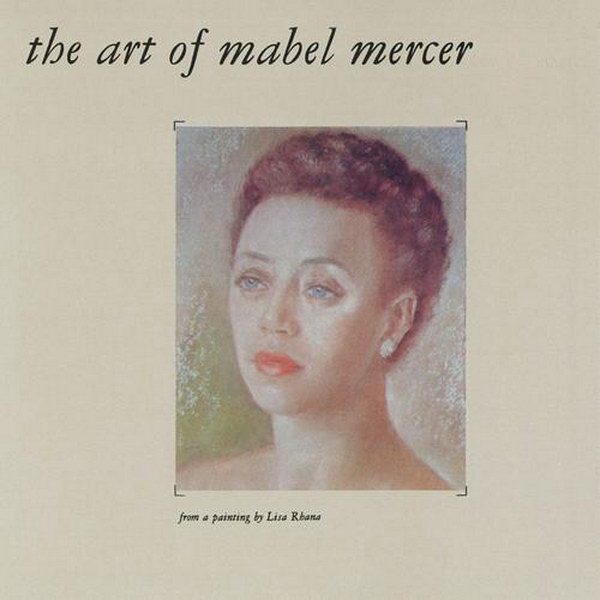
The Art of Mabel Mercer Font
Fonts in UseThe Art of Mabel Mercer is a compilation album featuring the recordings of the renowned cabaret singer Mabel Mercer. The album includes 24 tracks showcasing her unique vocal style and interpretations of classic songs.